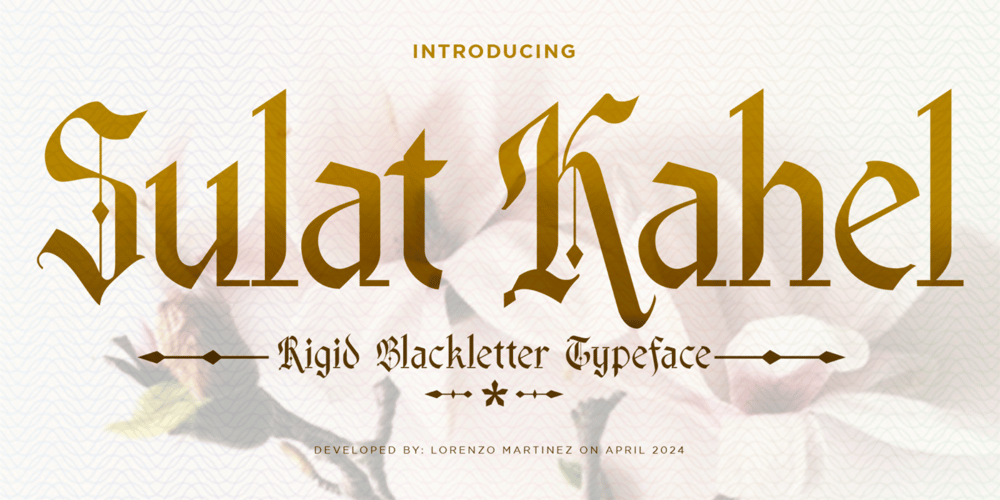
Sulat Kahel
Sulat Kahel font
Sulat Kahel Font Family was designed by Lorenzo Gabriel Martinez and published by Lurinzu Studios. Sulat Kahel contains 1 styles and family package options. “Sulat Kahel” is a black letter typeface that is inspired by various black letter influence ranging from fraktur, Schwabacher and Rotunda. It is an amalgamation of these 3 styles.Sulat Kahel means “Brown writing” in Filipino. Sulat= Writing, Kahel = Brown. The name comes from the inspiration and idea of the “Philippine blackletter style” that commonly use the black letter styling in its typography. This font is ideal for headlines, book covers, posters albums, and such to maximize the “style” of the letters fully. With proper caution, you may be able to use it in body type as well. *This font includes letters, numbers, stylistic alternates, multilanguage support, and all essential marks needed.